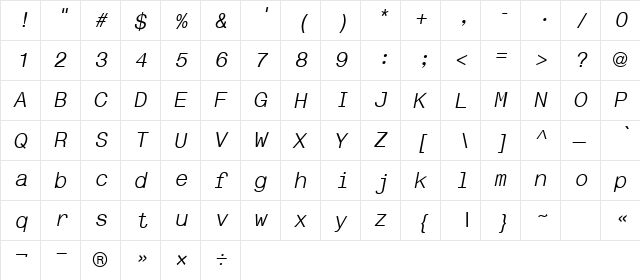
R_thai Italic
Design Context for R_thai Typeface
R_thai takes a measured approach to typography — its balanced proportions and neutral character make it a reliable workhorse for both digital and print work. Its italic angle brings a sense of urgency and motion to the letterforms.
Pro Tip: Try R_thai for annotation and caption copy alongside an upright companion — the contrast in angle creates a dynamic but ordered typographic system.